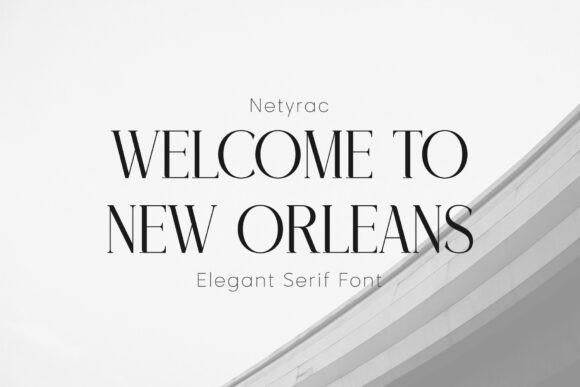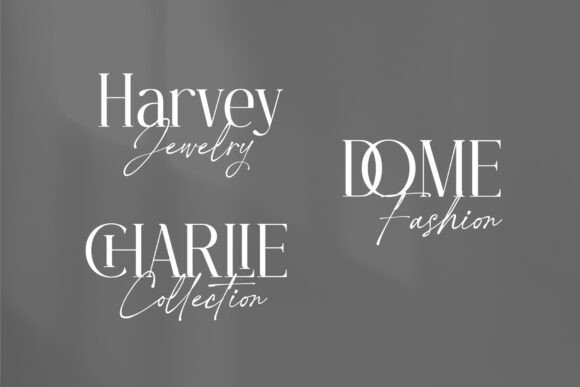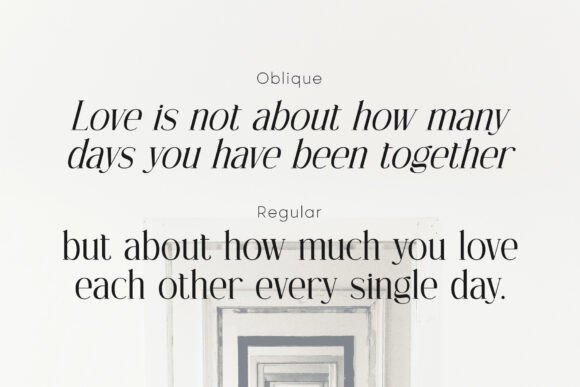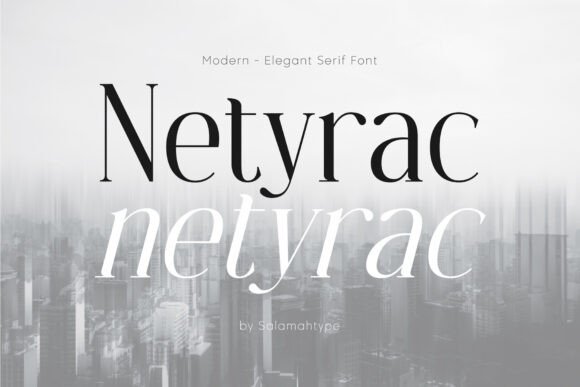
Introduction to Netyrac Font
Netyrac is a sophisticated serif font with an elegant and minimalist look, perfect for branding, logos, posters, ads, and more.
It comes in two styles: Regular and Oblique, allowing you to create the perfect font combination for your designs With multilingual support, Netyrac brings versatility and style to any project.